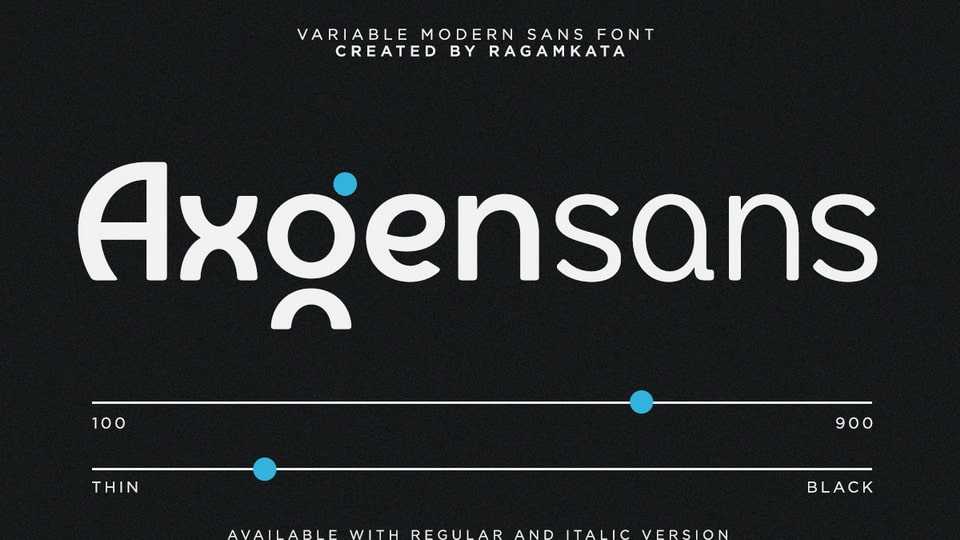
Download Axgensans font, a sleek, modern typeface crafted for elegant branding and premium design projects. Its refined and balanced letterforms offer a contemporary yet enduring appeal.